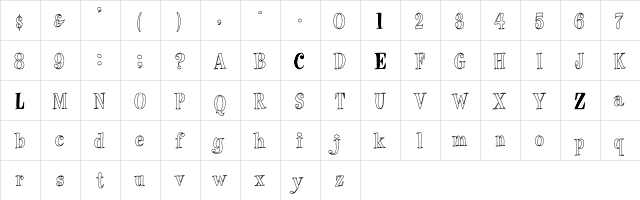
Pixie-HC Regular
Design Context for Pixie-HC Typeface
Pixie-HC is a composed and adaptable typeface that performs quietly and consistently across a wide range of design contexts.